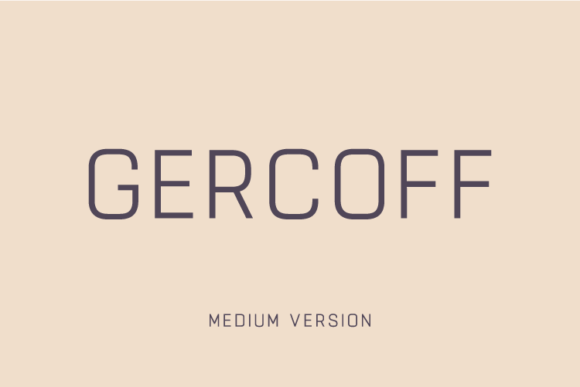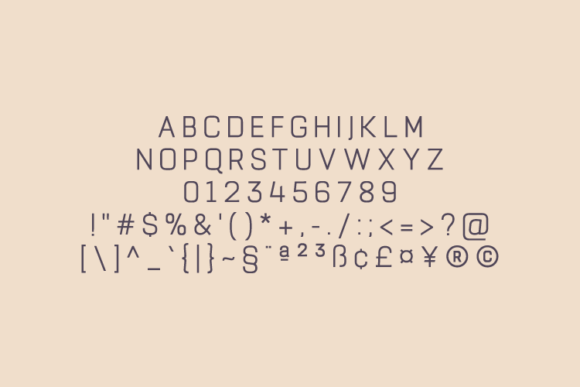
HomeSans Serif FontsGercoff Medium Font Sans Serif Fonts Gercoff Medium Font FacebookXPinterestWhatsApp Gercoff Medium Font 1 of 2 About Gercoff Medium Font Gercoff is a clean and simple vintage sans serif font with smooth edges. It’s perfect for vintage logo designs, headers and small amounts of text. DOWNLOAD NOW People also explored Miss You Font Monosign Font Blending Pade All Is Quiet Galaxie Courage Kid Font Alkilri Font Paradise Font Rionaldo Angelo 307 0 TagsGercoff Medium Font Previous articleGercoff Semi-Bold FontNext articleBokeseni UltraBlack Expanded Font LEAVE A REPLY Cancel reply Comment: Please enter your comment! Name:* Please enter your name here Email:* You have entered an incorrect email address! Please enter your email address here Website: Save my name, email, and website in this browser for the next time I comment. Personal Use Free Stereofidelic Personal Use Free Read more about this font The Relapse Personal Use Free Read more about this font Angista Script Personal Use Free Read more about this font First Be Lucky Personal Use Free Read more about this font BLOG Free vs Paid Fonts: Why Investing in Premium Fonts Is Worth It Free vs Paid Fonts: Why Premium Fonts Are Worth It in 2025 The debate of free vs paid fonts continues in the design world. While... 5 Fonts That Will Dominate Design Trends in 2026 Best Fonts for YouTube Videos: Make Your Thumbnails Stand Out Top 7 Google Fonts Alternatives for Faster and Privacy-Friendly Web Design (2025)